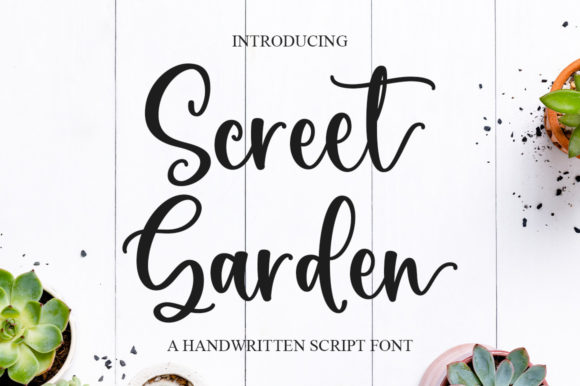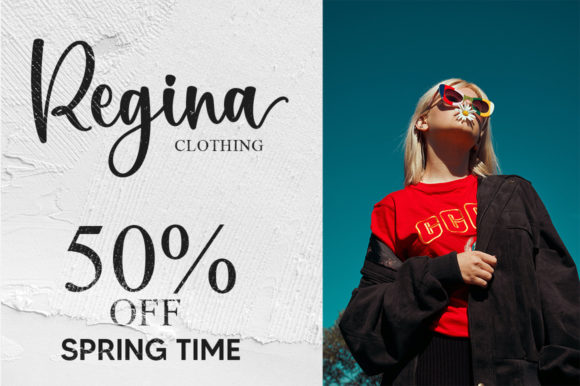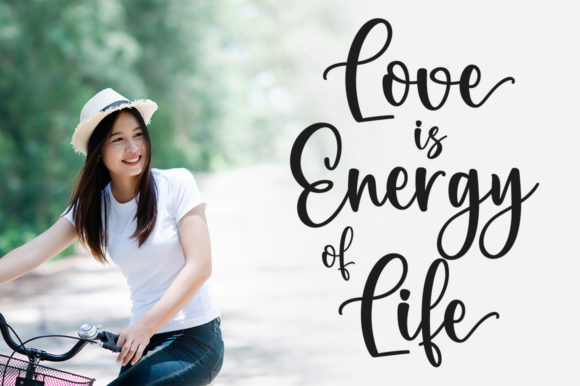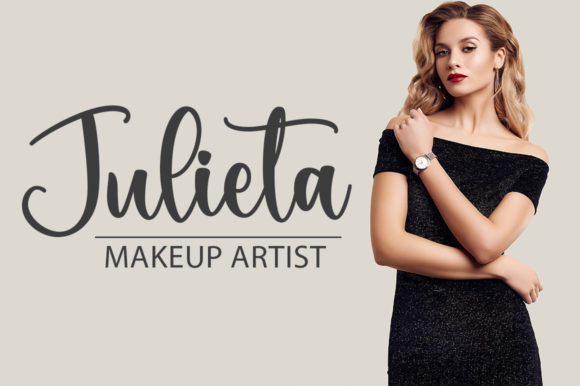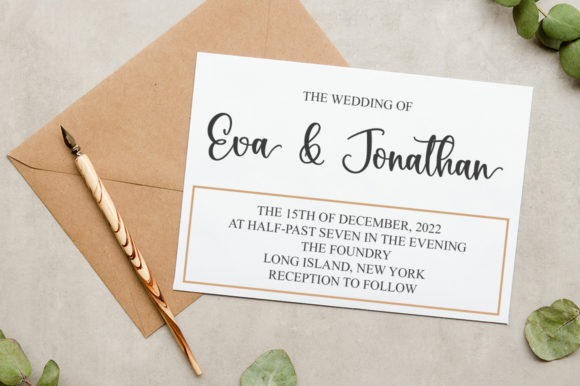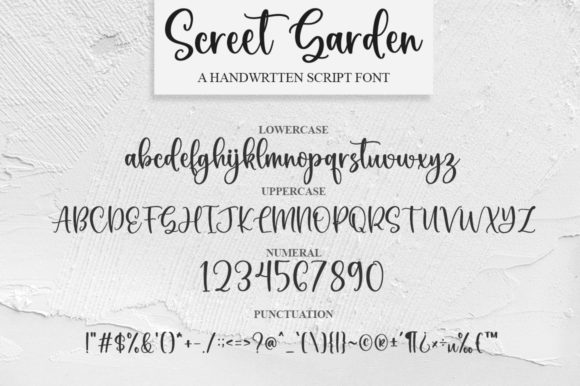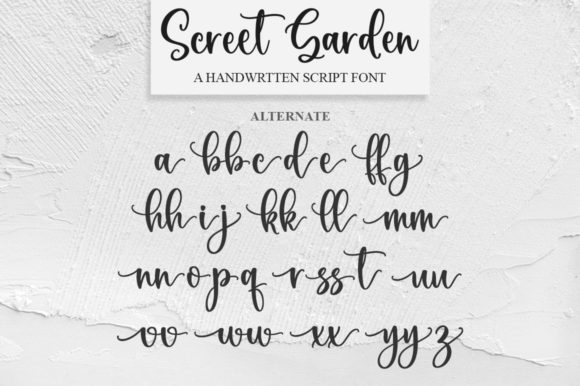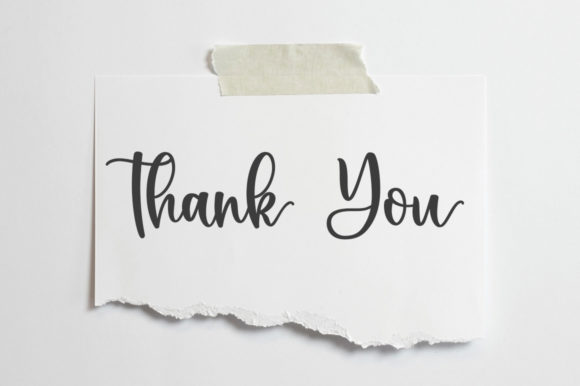
Screet Garden Font
About Screet Garden Font
“Screet Garden” is a charming and timeless handwritten font that exudes a sense of elegance and sophistication. It is an ideal choice for creating eye-catching logos, distinctive branding, and memorable quotes. With its unique style, “Screet Garden” can transform your designs into works of art that captivate and engage your audience.
One of the standout features of “Screet Garden” is its PUA encoding. This means you can easily access all of the glyphs and swashes, giving you the freedom to customize your designs to your heart’s content. Whether you’re looking to add a touch of flair to your logo or bring a quote to life, the extensive range of glyphs and swashes at your disposal allows you to do just that.
In addition to its aesthetic appeal, “Screet Garden” is also practical. The PUA encoding ensures that the font is compatible with a wide range of software, making it a versatile choice for designers. Whether you’re working on a digital project or a print design, “Screet Garden” has got you covered.
In conclusion, “Screet Garden” is more than just a font. It’s a design tool that allows you to express your creativity and make a lasting impression. With its lovely style, timeless appeal, and PUA encoding, “Screet Garden” is the perfect font for your next design project. So why wait? Start creating with “Screet Garden” today!